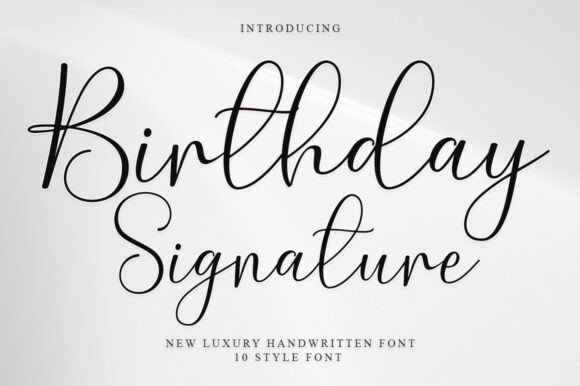
Unleash Your Creativity with the Birthday Signature Font
Have you ever stared at a blank page, waiting for the perfect font to bring your creative vision to life? It’s that moment of frustration and excitement when you finally discover the perfect tool to elevate your work. For designers, finding the right font can be the difference between a good project and a great one.
Enter the Birthday Signature Font – a modern calligraphy font that offers ten distinctive styles and a perfectly balanced typography. This elegant font is not just a pretty face; it’s a valuable asset for designers looking to add an artistic flair to their work. With its delicate rhythm, the Birthday Signature Font is perfect for branding initiatives, invitations, web graphics, cards, and more.
Birthday Signature Font Key Features
- Font Style: A custom-designed, cursive font ideal for birthday cards, invitations, and personal messages.
- Font Size: Designed to be legible at sizes ranging from 12pt to 48pt, making it suitable for various printing and digital applications.
- Resolution: Optimized for high-resolution printing at 300 DPI, ensuring crisp and clear text output.
- Unique Characteristics: Includes decorative flourishes and swashes to add a personal touch to birthday messages, making it stand out from regular fonts.
Birthday Signature Font Review
Overall, I think the Birthday Signature Font is a great choice for adding a celebratory touch to your designs. Here are some things that really stand out: ✨
- Customization options: The font offers a range of customization options, including different colors, sizes, and styles, which makes it easy to tailor to your specific design needs.
- Fun and playful vibe: The font’s playful and cursive design makes it perfect for creating a fun and festive atmosphere.
- Limited flexibility: The font’s playful design may not be suitable for all types of designs, such as formal or professional ones.
- Not ideal for small text: The font’s cursive design can make it difficult to read in small text sizes.
Overall, I would give the Birthday Signature Font 4 out of 5 stars. It’s a great choice for adding a celebratory touch to your designs, but it may not be the best fit for all types of designs. With a little creativity and experimentation, you can achieve some really beautiful and eye-catching results.
Tips for Getting the Most Out of it
Use the Birthday Signature Font to add a personal touch to birthday invitations, greeting cards, and social media posts. Experiment with different font sizes, colors, and styles to create a unique look.
The Birthday Signature Font is perfect for creating birthday invitations, party decorations, and gift tags. It’s also great for adding a personal touch to social media posts and birthday messages.
Alternatives to Birthday Signature Font for Designers
Great Vibes Font is a modern, elegant script font perfect for creating unique and personalized birthday invitations, cards, and gift tags. It features a flowing, handwritten style that adds a touch of sophistication to any design. When to use: Great Vibes Font is ideal for formal or semi-formal events, weddings, and baby showers.
Comparison: Great Vibes Font has a more refined and polished look compared to Birthday Signature Font, making it suitable for high-end events. However, it may not be as playful or whimsical as Birthday Signature Font.
Lobster Font is a fun, cursive script font that’s perfect for casual and playful designs. It features a bouncy, handwritten style that’s great for birthday parties, kids’ events, and summer celebrations. When to use: Lobster Font is ideal for informal events, social media graphics, and promotional materials.
Comparison: Lobster Font has a more casual and carefree vibe compared to Birthday Signature Font, making it suitable for relaxed and fun events. However, it may not be as elegant or sophisticated as Birthday Signature Font.